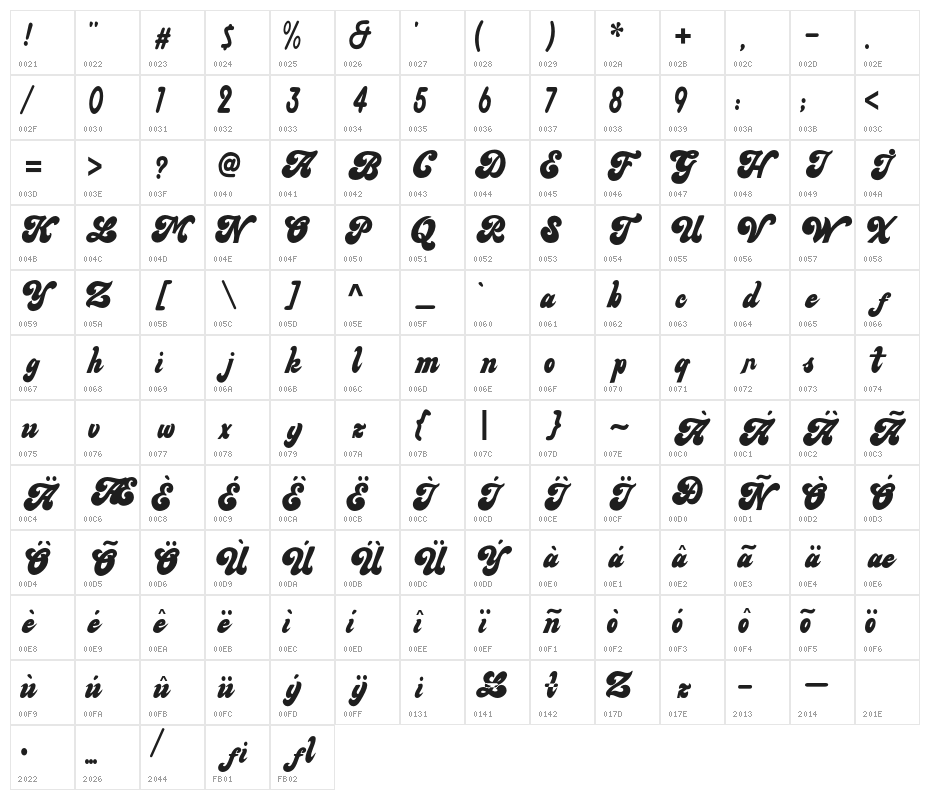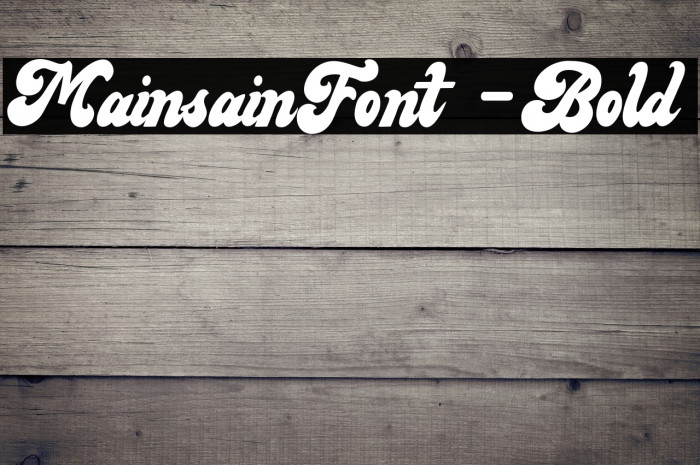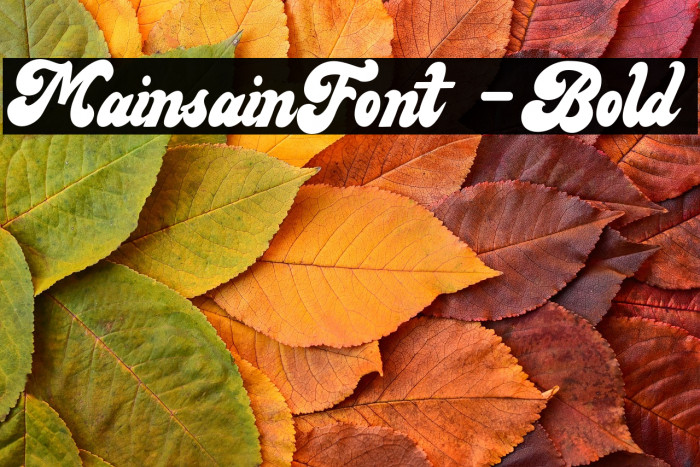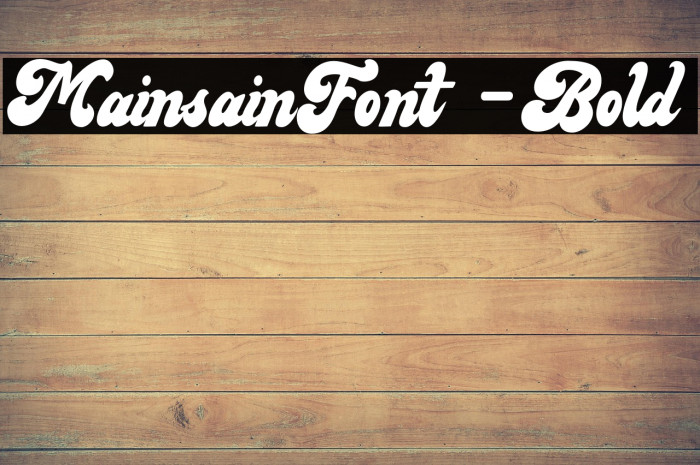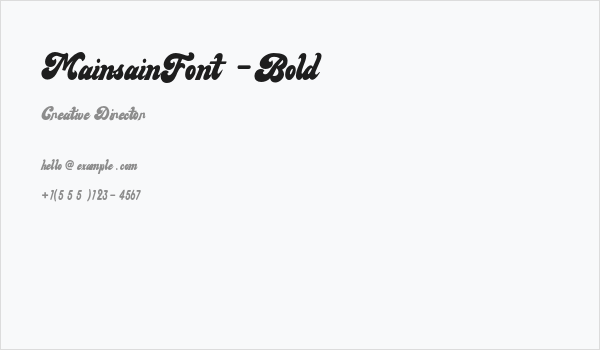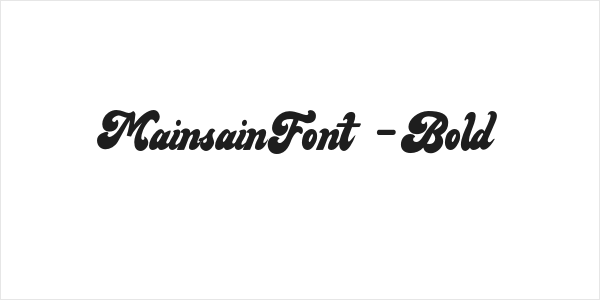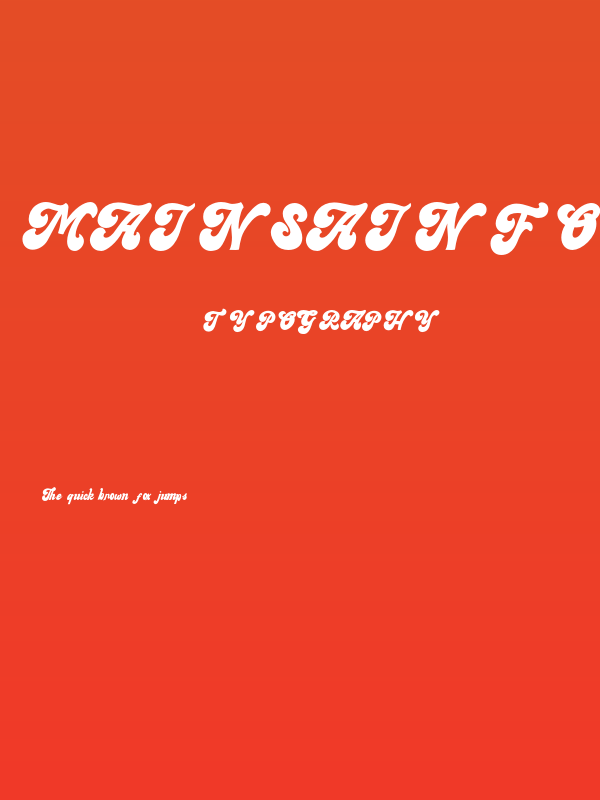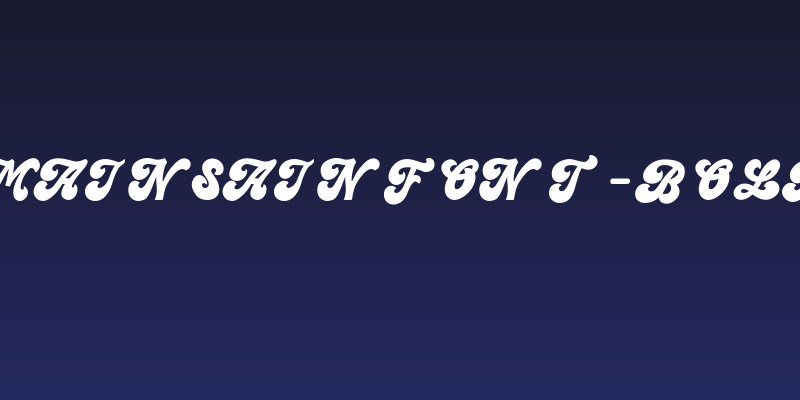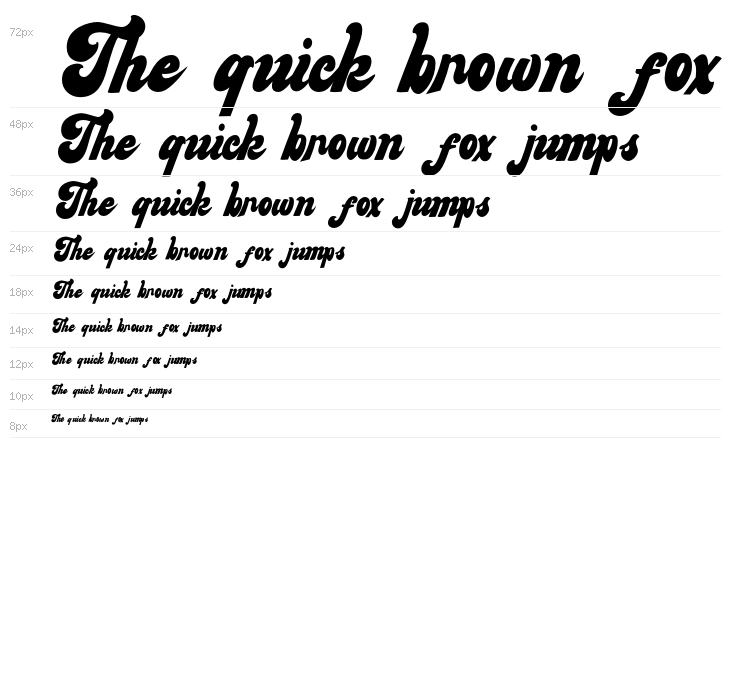
MainsainFont-Bold Font
MainsainFont-Bold Description
This font features a bold, flowing script style with a strong presence. The characters are interconnected, creating a sense of continuity and elegance. The uppercase letters are ornate, with sweeping curves and flourishes, while the lowercase letters maintain a consistent, rounded form. The numbers are bold and clear, matching the overall style of the font. Special characters are designed with the same attention to detail, ensuring they fit seamlessly with the rest of the character set. This font is ideal for making a statement, with its high contrast and decorative flair.